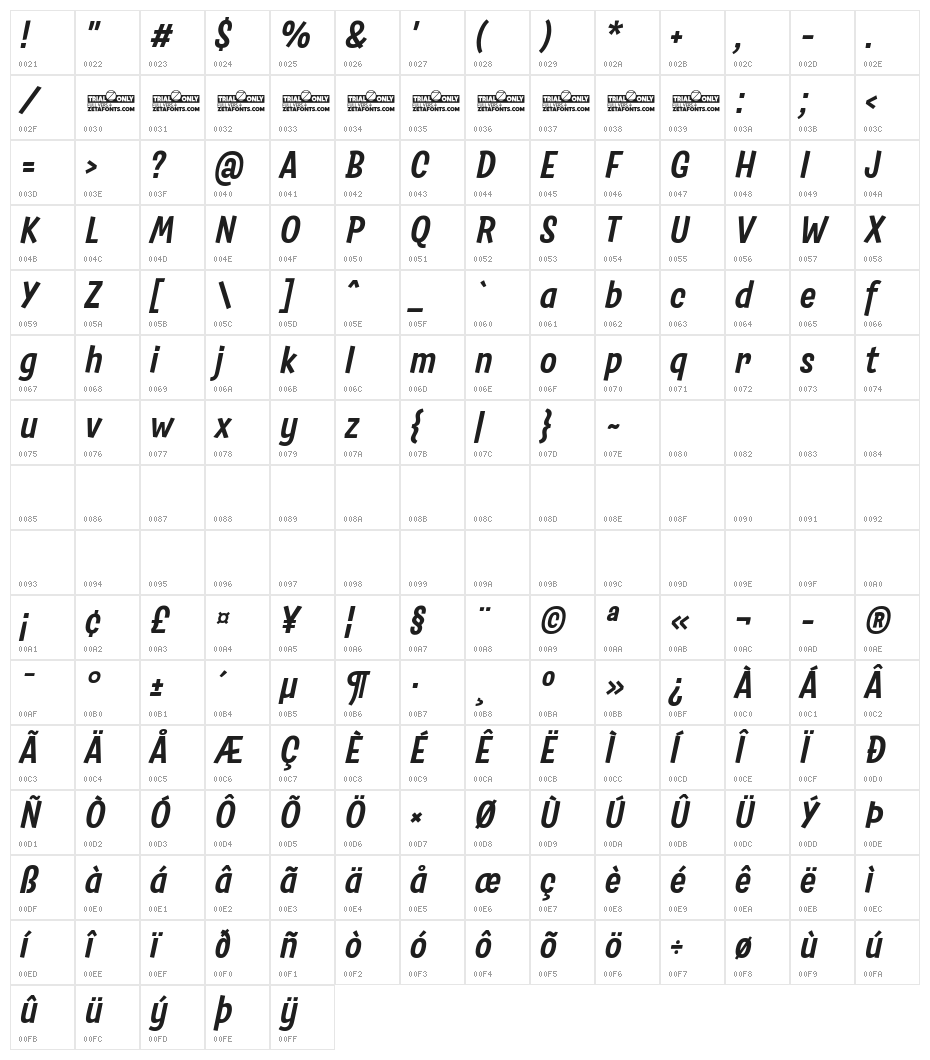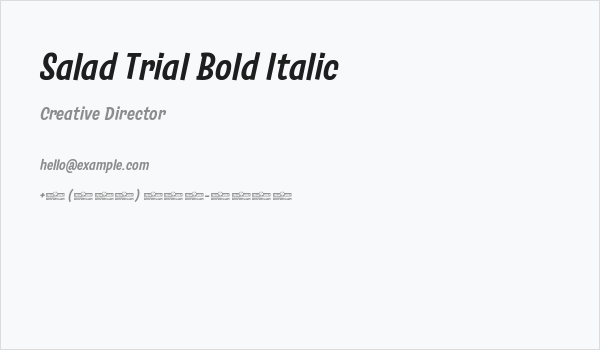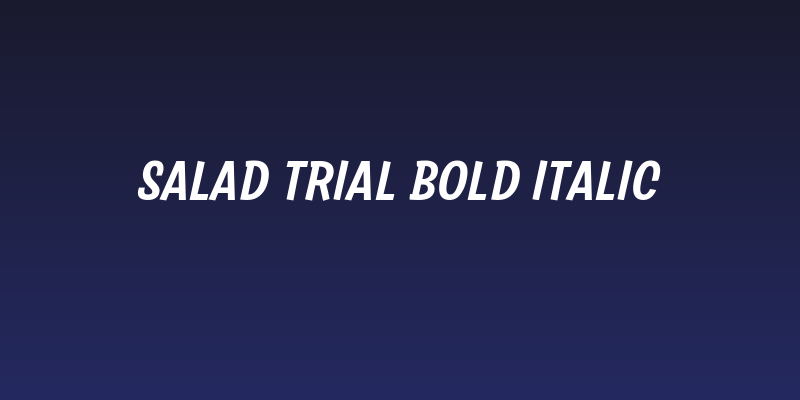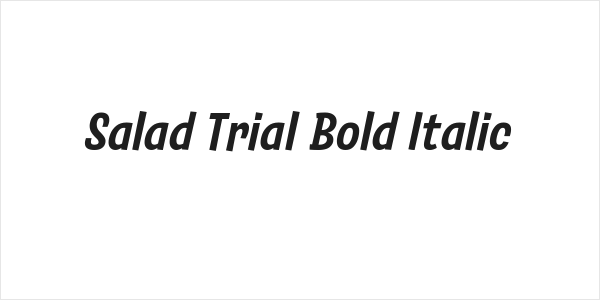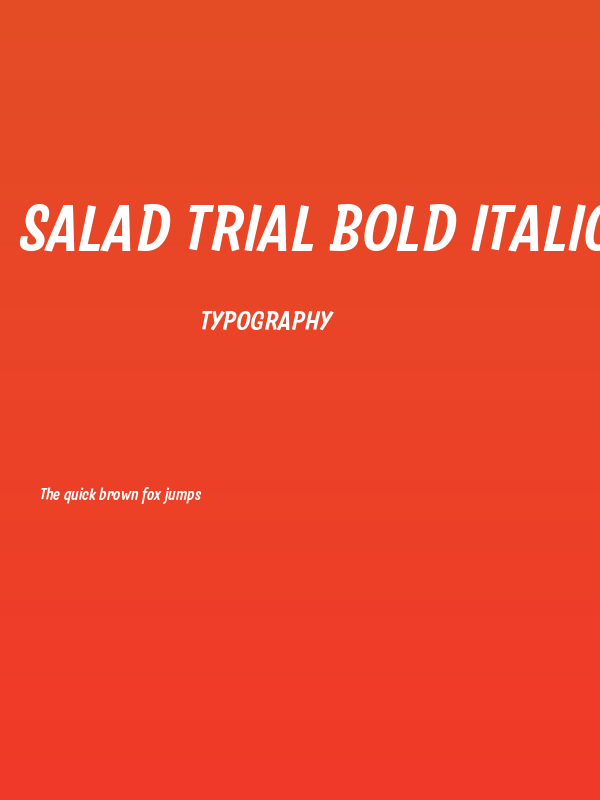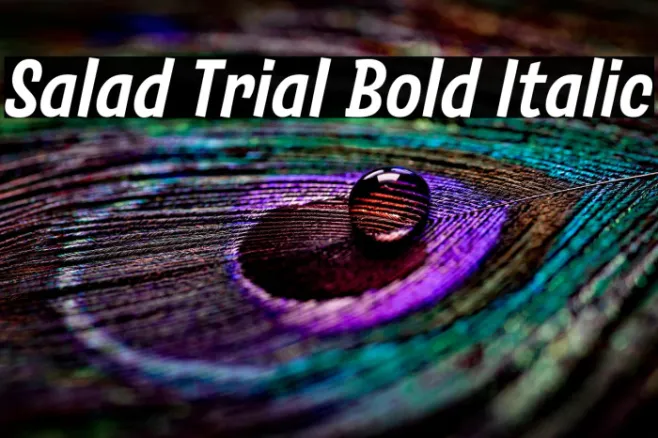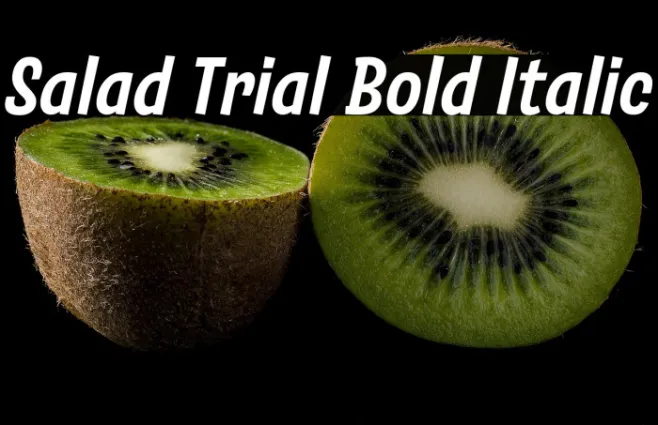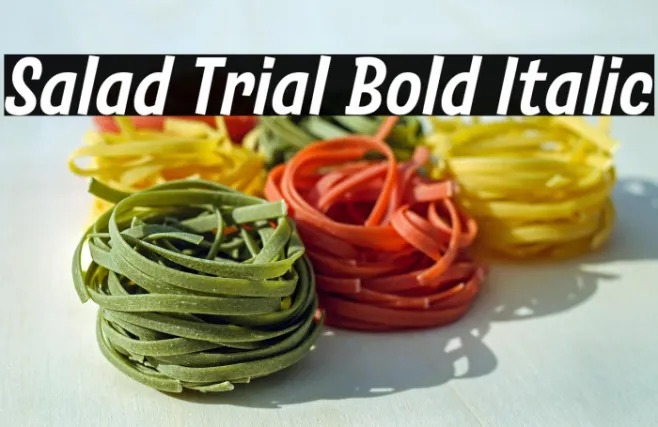
Salad Trial Bold Italic Font
Salad Trial Bold Italic Description
This font exhibits a bold and italicized style, characterized by its strong and dynamic presence. The letters are slightly slanted, adding a sense of motion and energy. The strokes are thick and consistent, providing a robust appearance. The font maintains a modern aesthetic with clean lines and a straightforward design. The uppercase and lowercase letters are well-proportioned, ensuring readability. The numerals and special characters are designed to match the boldness of the alphabet, making it suitable for various applications.
| Use Case | Headlines, Logos, Advertising |
| Proposed Projects | Ideal for branding, advertising, headlines, and posters where a strong and energetic impression is desired. |